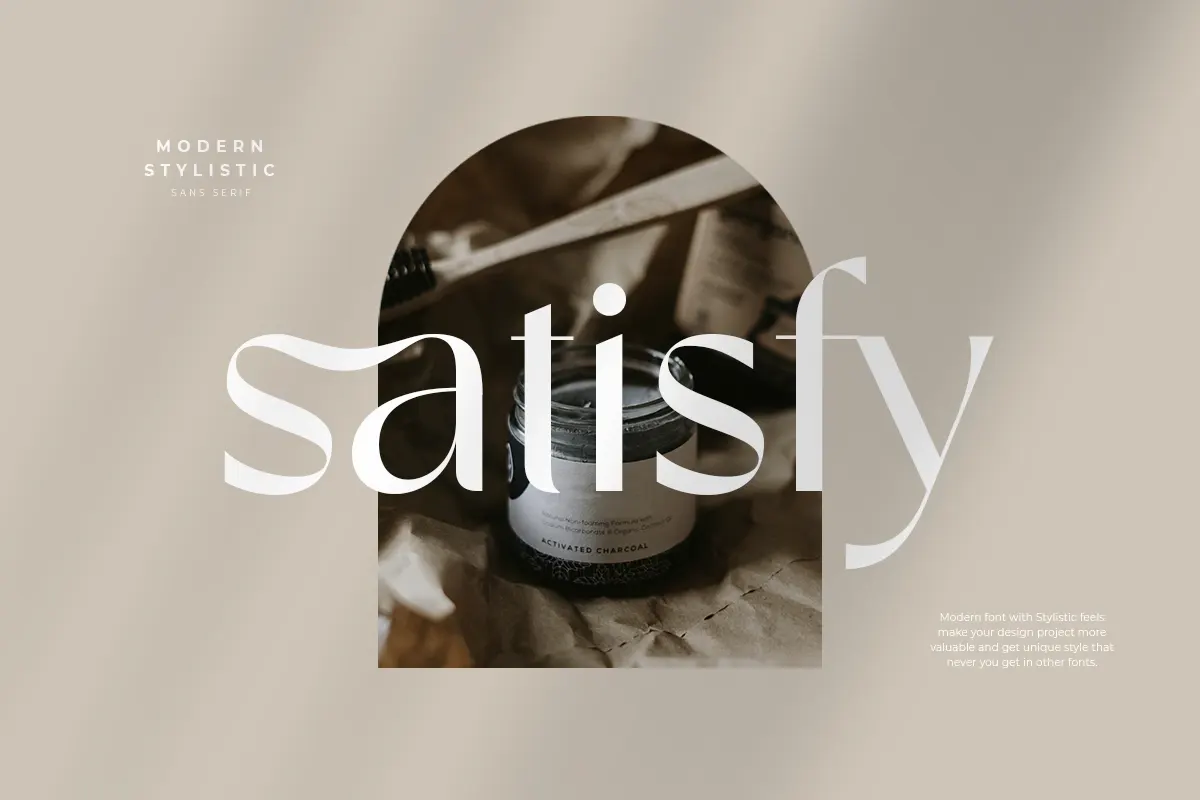
Satisfy – Modern Stylistic Sans Serif Font Free Download
You must purchase this font for commercial use. However, you can download Satisfy – Modern Stylistic Sans Serif Font Free Download for testing purposes. Satisfy is a sleek, modern sans serif font with a stylish twist—designed to bring elegance, minimalism, and a contemporary edge to your creative projects. Ideal for branding, editorial layouts, logos, fashion magazines, portfolios, and luxury packaging, this font offers both versatility and high visual appeal.
With its clean lines, refined curves, and unique stylistic alternates, Satisfy brings a high-end, editorial feel to both print and digital designs. It’s perfect for creating standout headlines, minimalist layouts, and upscale branding systems that require a touch of subtle sophistication. Whether you're working on a beauty label or a modern blog design, Satisfy – Modern Stylistic Sans Serif Font Free Download allows you to test the font’s aesthetic and adaptability before committing to a commercial license.